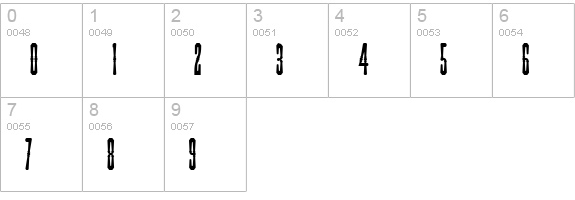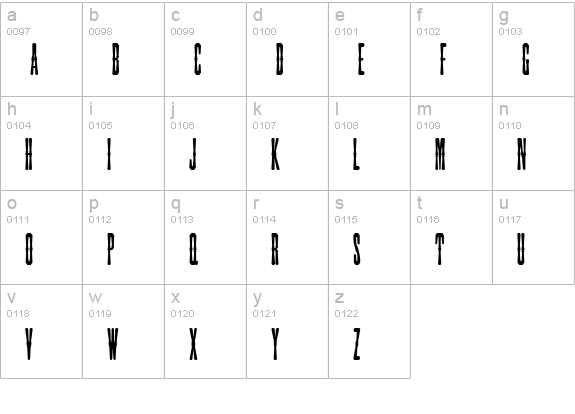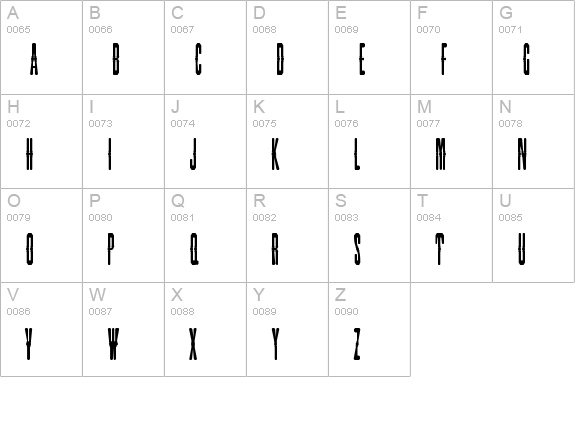
Spindletop Wbw Font Details
Spindletop Wbw font is a meticulously crafted typeface that exudes elegance and sophistication. Its exquisite design combines the timeless aesthetics of vintage typography with a modern twist, making it a perfect choice for a wide range of creative projects. With its clean lines and graceful curves, Spindletop Wbw font adds a touch of class to any design. Whether used for headlines, logos, invitations, or branding materials, this versatile font never fails to make a stylish statement. The characters of Spindletop Wbw font are beautifully balanced, ensuring optimal legibility without compromising on style. Each letter is carefully crafted to create a harmonious flow, resulting in a seamless reading experience. One of the most appealing aspects of Spindletop Wbw font is its availability as a free download on FontsMarket.com. This means that designers and enthusiasts can easily access this stunning font without any cost, making it an ideal choice for both personal and commercial projects. The versatility and elegance of Spindletop Wbw font make it a must-have for any designer's toolkit. Its timeless appeal and free availability make it a go-to choice for creating captivating and professional designs. So why wait? Download Spindletop Wbw font now and let your creativity soar!